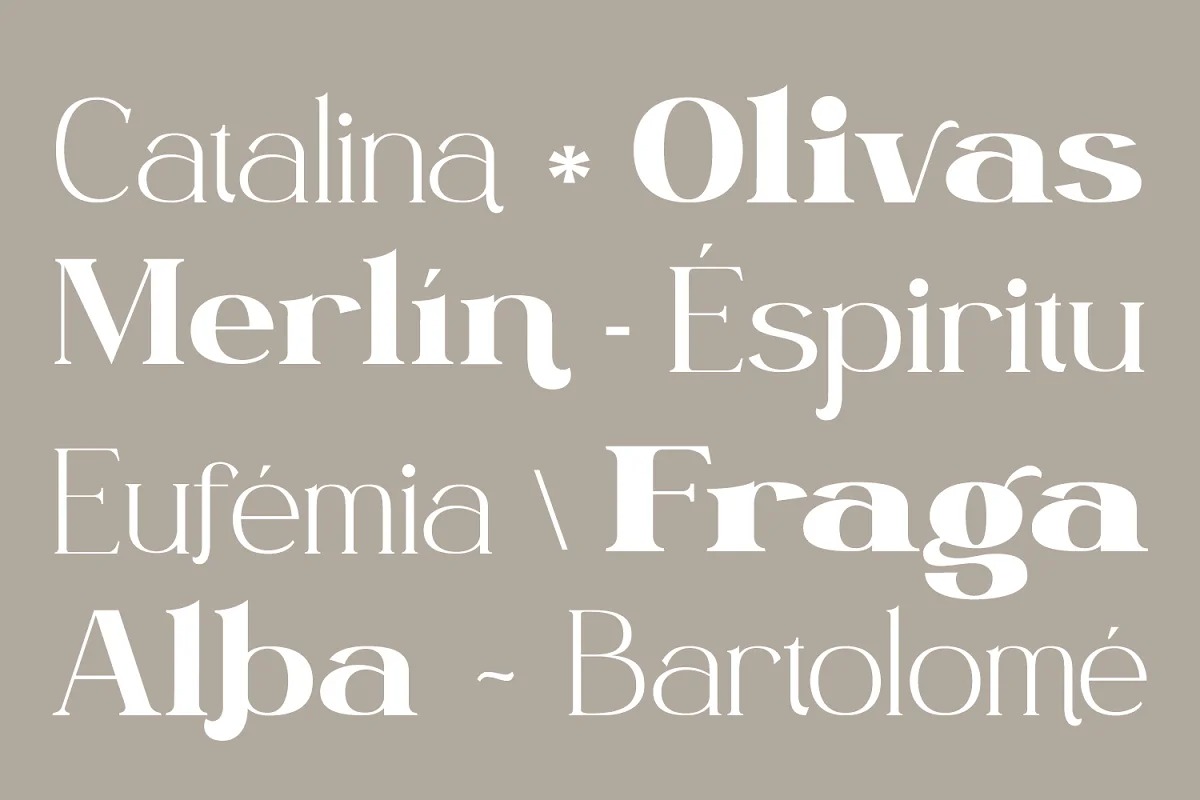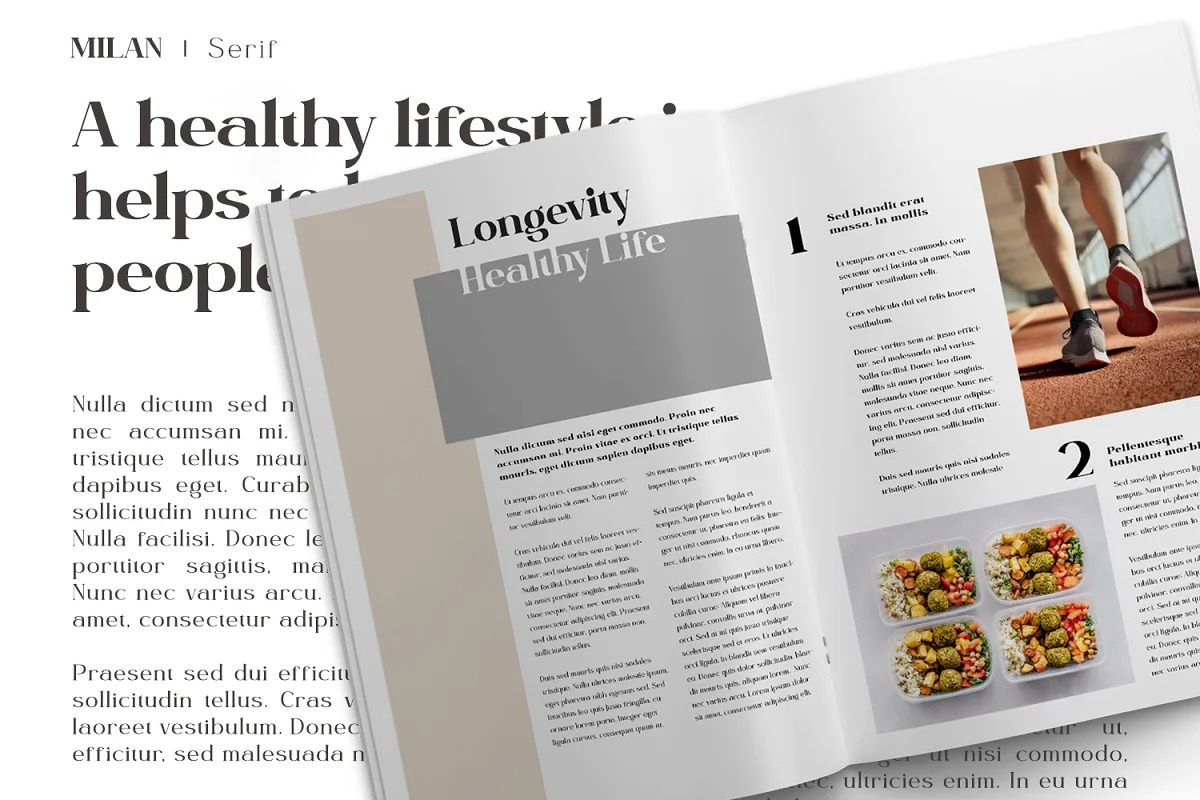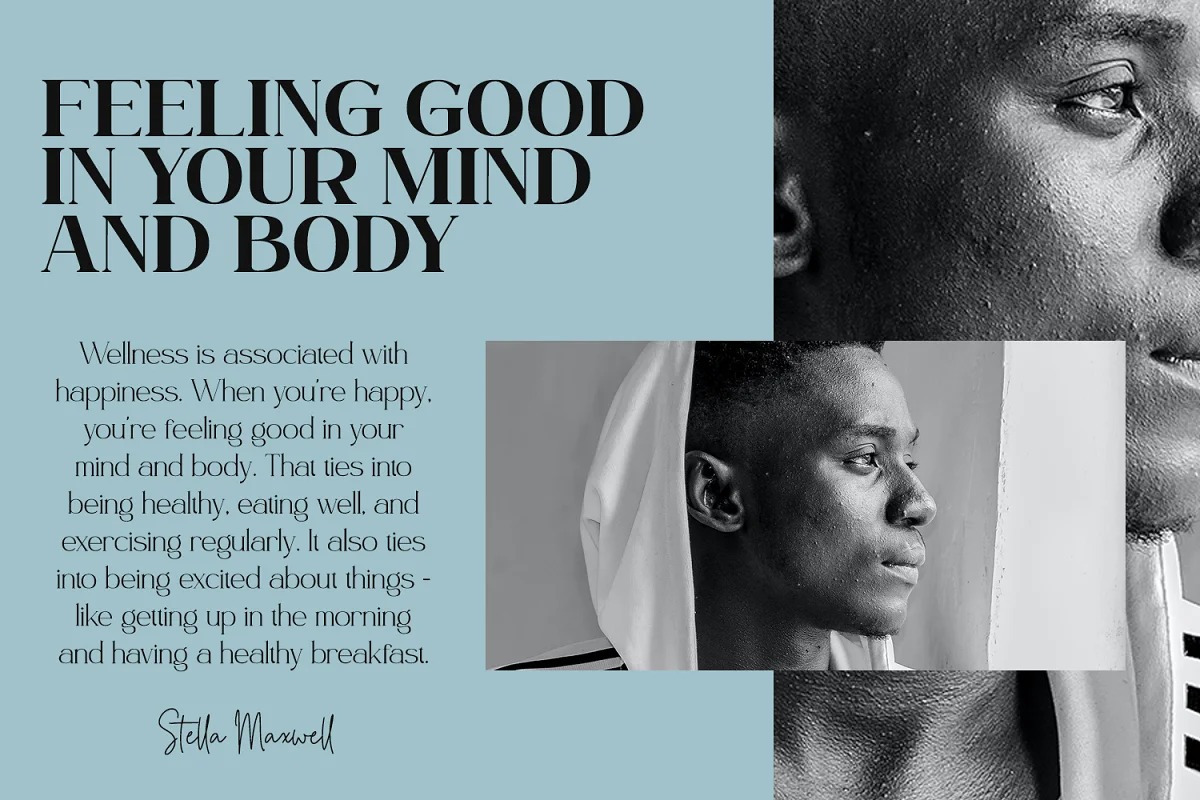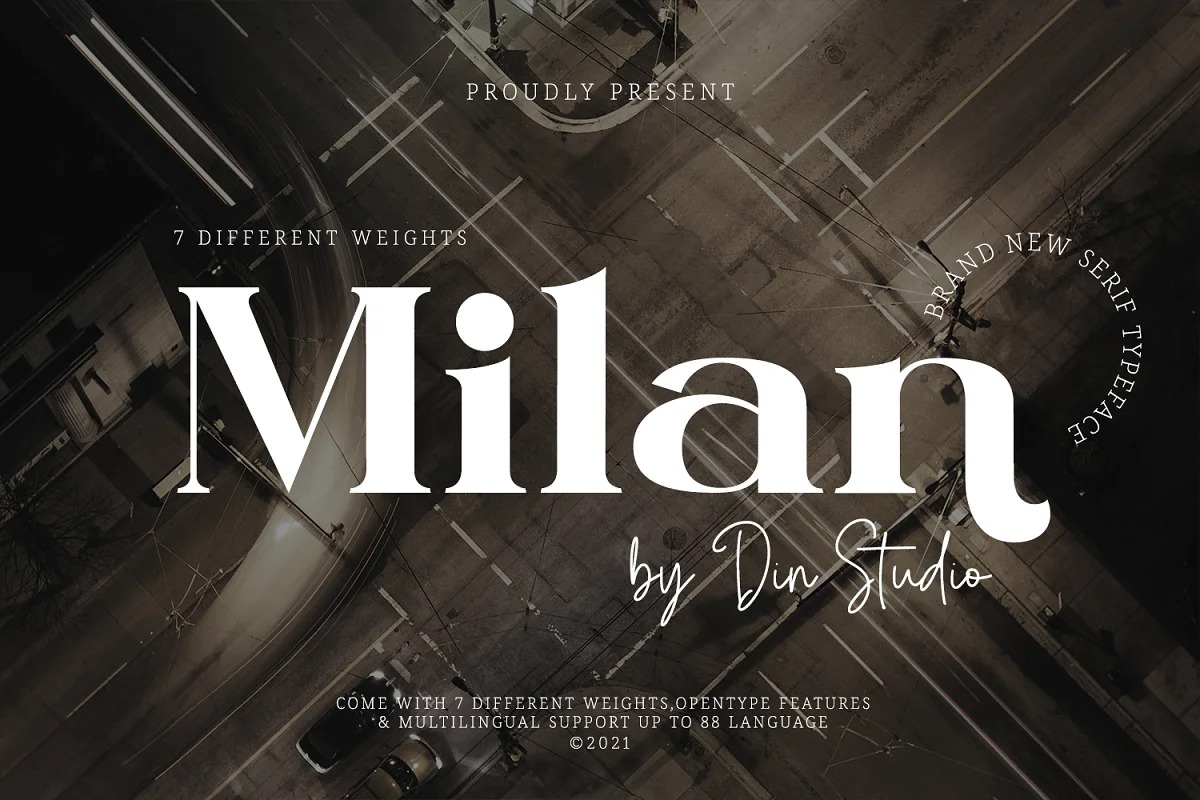
Milan Serif Font
This font is a sophisticated sans serif with many weight style to choose from. With this family you will get many options of weight to maximize your designs with stylish fonts. Milan is made in uppercase and lowercase that easy on the eyes and nice to look while it’s also easy to read. This font family is an excellent choice to ensure a great font match for your designs and projects! Perfect to create amazing headings, logos, menus, social media graphics, and many more.